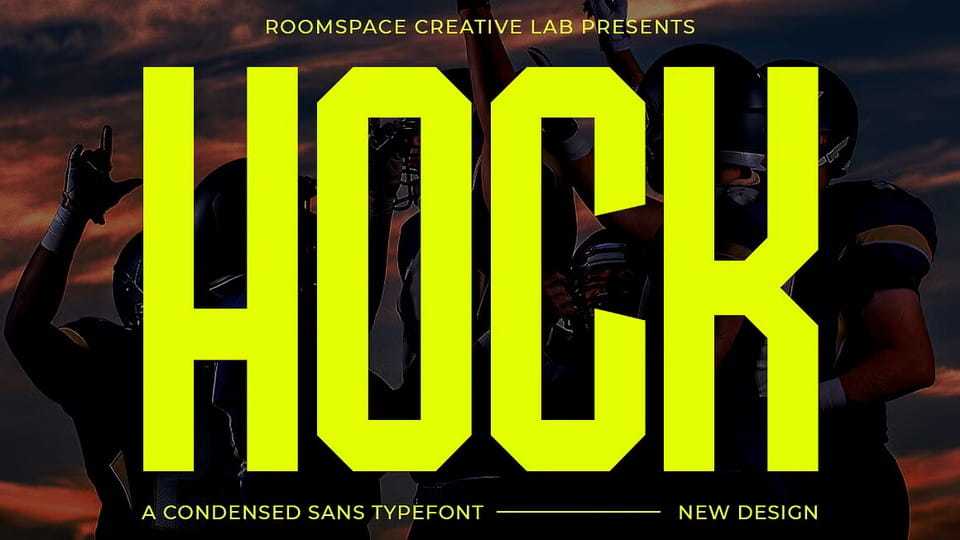
Download HOCK font, a condensed sans-serif typeface engineered for high-impact visual messaging. With its tight, vertical proportions and sharp geometric forms, HOCK injects a sense of strength and tension into any layout.